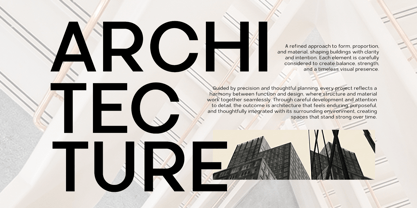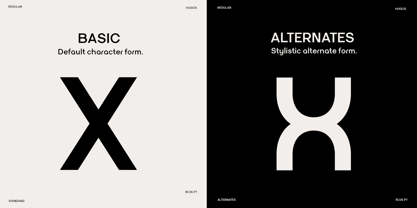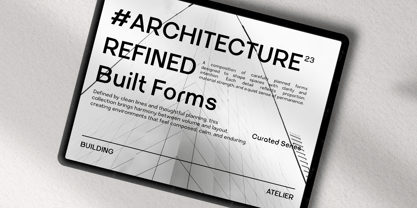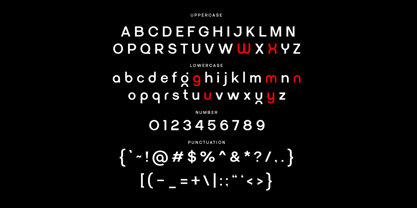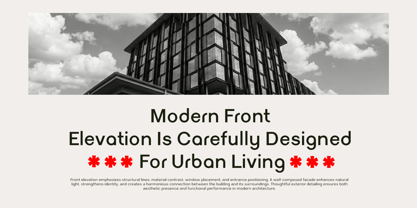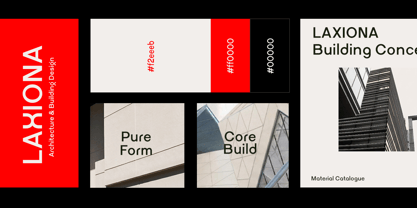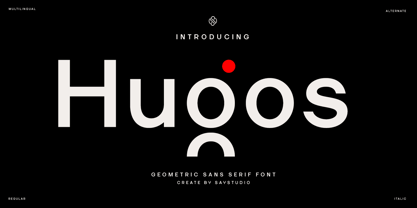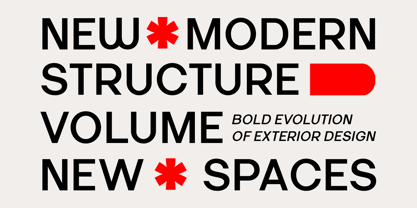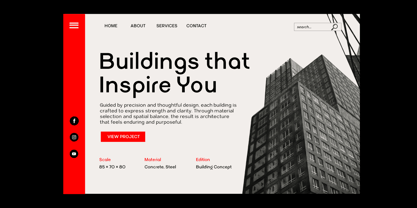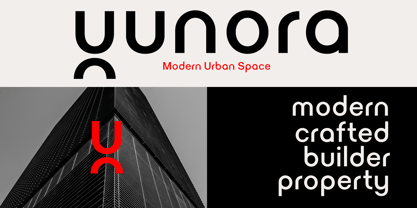
Hugos
The Hugos Font Family was designed by Mussyayin and published by Say Studio. Hugos contains 2 styles and family package options. More about this family
Hugos is a geometric sans serif font that seamlessly blends modern simplicity with a distinctive visual character. Featuring clean shapes and balanced proportions, it presents a minimalist yet bold appearance that feels fresh and contemporary. The unique letter construction infuses personality while ensuring clarity and readability across various design contexts. Designed for versatility, Hugos is ideal for branding, logos, UI design, and modern digital layouts. Its geometric foundation imparts a structured and professional feel, while subtle stylistic details enhance its appeal in headlines and identity systems. With both regular and italic styles, it provides flexibility for dynamic compositions. Additionally, Hugos offers multilingual support and carefully crafted alternates, making it suitable for global use and creative exploration. Whether you're developing a tech brand, a modern interface, or a clean visual identity, this typeface delivers a sleek and forward-thinking aesthetic.